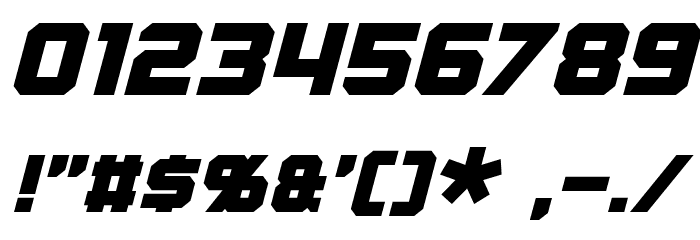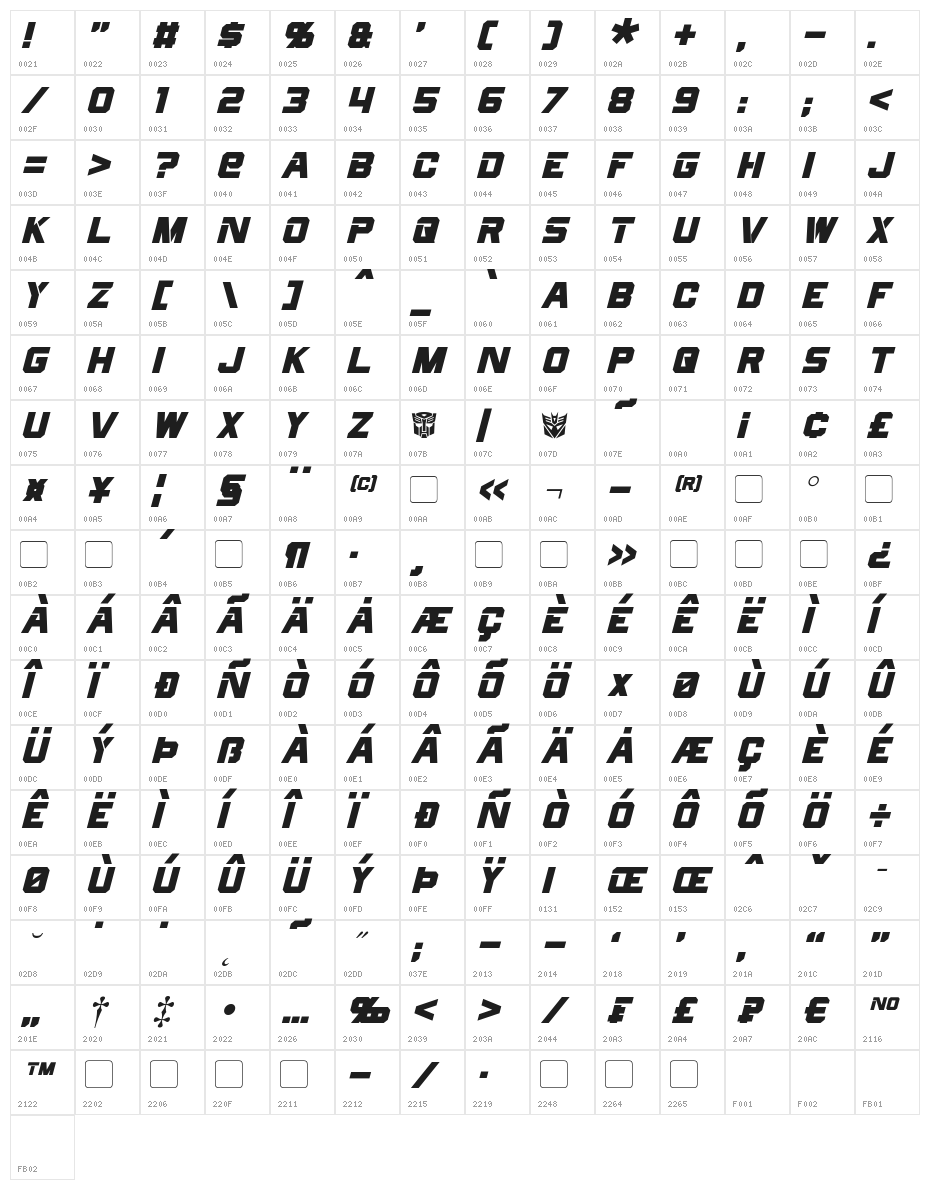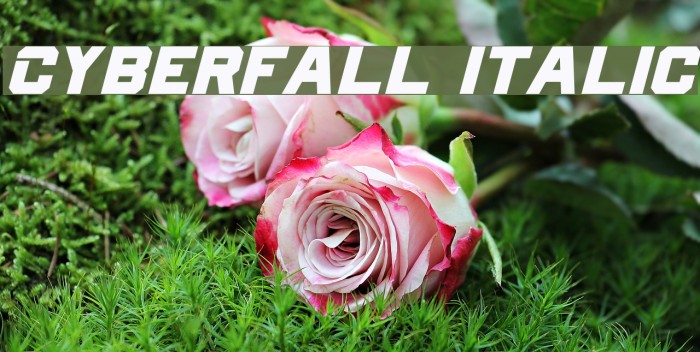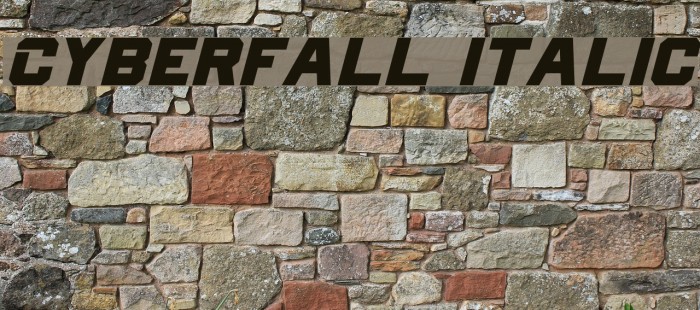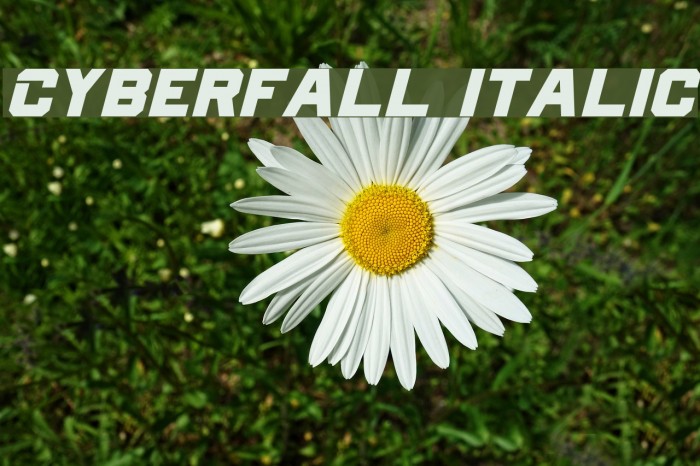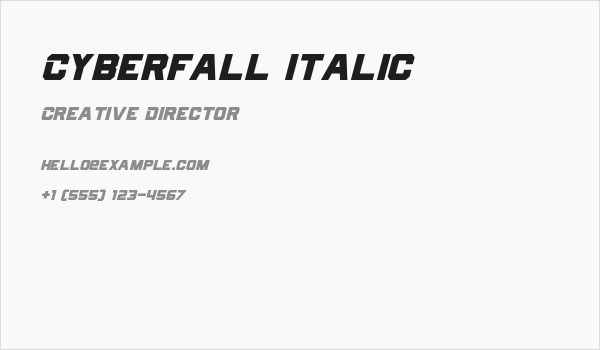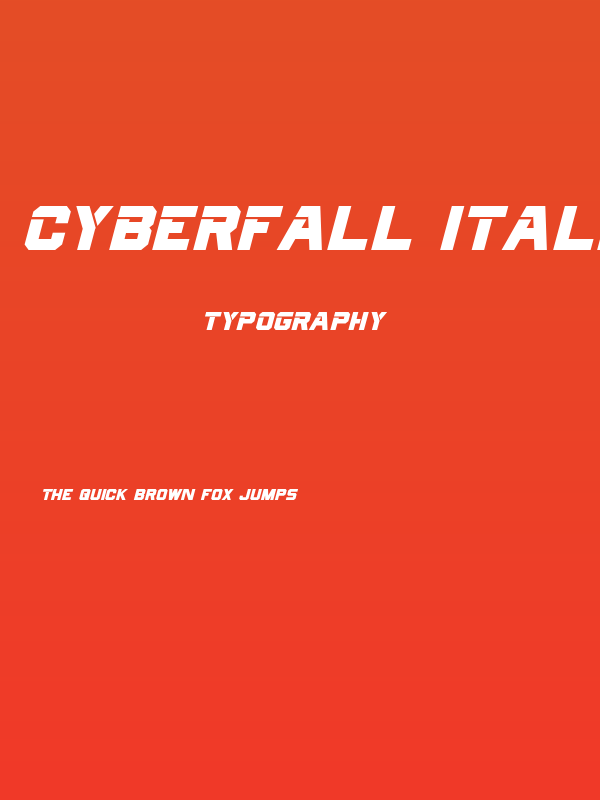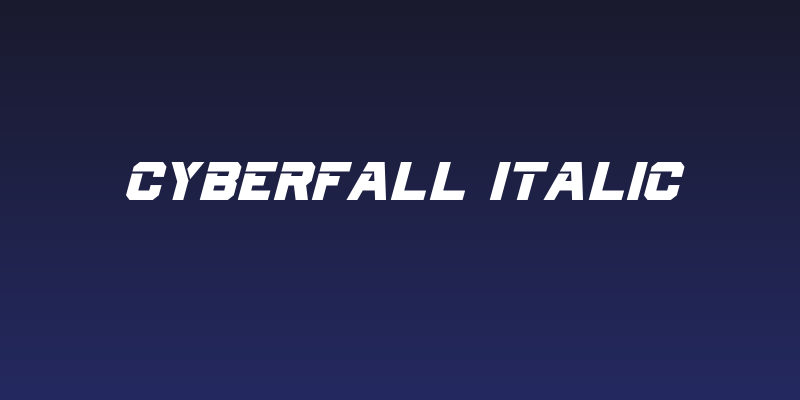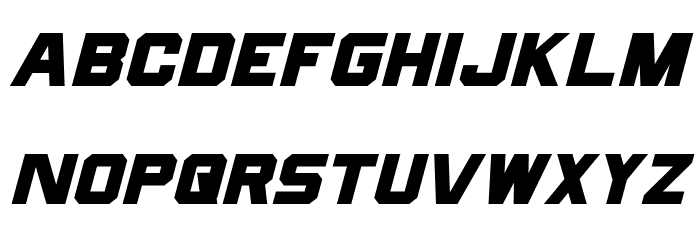
Cyberfall Italic Font
Cyberfall Italic Description
This font features a bold, italicized style with a futuristic and dynamic appearance. The characters are sharply angled, giving a sense of motion and energy. The uppercase and lowercase letters maintain a consistent slant, enhancing the italic effect. The numbers and special characters follow the same design principles, ensuring uniformity across all glyphs. The font's strong geometric shapes and thick strokes make it highly legible, even at smaller sizes. Its modern aesthetic is ideal for projects that require a tech-savvy or cutting-edge look.
| Proposed Projects | Ideal for technology branding, video game titles, sci-fi movie posters, and digital interfaces. |